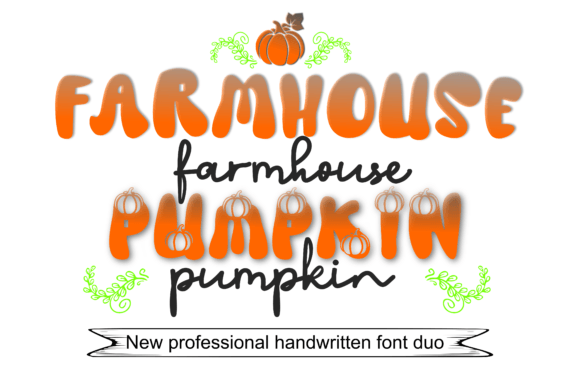
The Perfect Font for Cozy Autumn Vibes
As the leaves start to change and the crisp air sets in, I find myself craving all things cozy and autumnal. The smell of pumpkin spice, the warmth of a crackling fire, and the charm of a rustic farmhouse – it’s the perfect time to get creative and capture the essence of the season. For me, it all starts with the right font. And that’s where the Farmhouse Pumpkin Font comes in – a delightful duo of sans and script fonts that exudes warmth and personality.
Whether you’re designing a holiday card, a menu for a seasonal dinner party, or a cozy interior design concept, the Farmhouse Pumpkin Font is the perfect addition. Its casual charm and fun personality make it an instant favorite among designers. With its versatility and charm, the Farmhouse Pumpkin Font is a valuable addition to any designer’s toolkit – and a must-have for anyone looking to create beautiful autumn-inspired designs.
- Unique Characteristics: Distressed, hand-painted, and vintage-inspired design elements
Farmhouse Pumpkin Font Review
As a designer, I’ve had the chance to work with the Farmhouse Pumpkin Font, and I must say it’s a unique and charming addition to any design project. ✨ Here are some of its strengths:
- Quirky charm: The font has a distinct, homemade feel that’s perfect for rustic or vintage-inspired designs.
- Expressive flair: The varying line widths and irregular shapes give the font a playful, handwritten quality that’s hard to resist.
- Legibility: Despite its quirky nature, the font is surprisingly easy to read, even at smaller sizes.
Of course, no font is perfect, and the Farmhouse Pumpkin Font has some limitations. ⚠️ These include:
- Limited versatility: The font’s rustic, vintage vibe might not be the best fit for modern or sleek designs.
- Difficulty in scaling: While the font is legible at smaller sizes, it can become pixelated or distorted at larger sizes.
Overall, I think the Farmhouse Pumpkin Font is a great choice for designers looking to add a touch of whimsy and personality to their work. It’s perfect for projects like invitations, social media graphics, or branding for small businesses or artisans.
Use the Farmhouse Pumpkin Font to create a rustic, country-inspired design. It’s perfect for fall-themed designs, farm-themed designs, or any design that needs a warm, inviting feel. You can use it for headings, titles, or body text, and experiment with different font sizes and styles to create a visually appealing design.